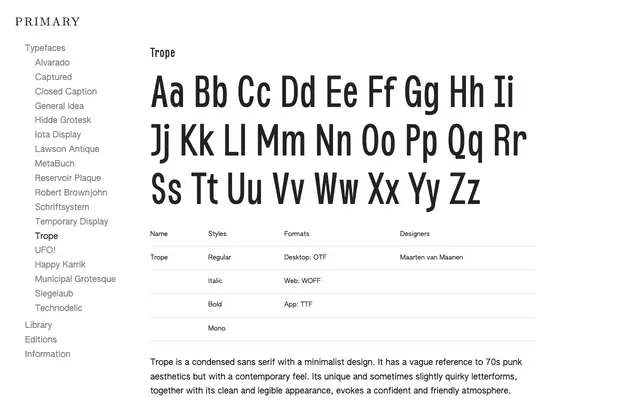
Trope
A condensed minimalist sans with a loose nod to 70s punk, designed by Maarten van Maanen with four styles including a monospaced variant.
Designed by Maarten van Maanen, Trope is a condensed sans serif with clean, legible forms and occasional quirks in the letterforms that keep it from feeling generic. The family spans Regular, Italic, Bold and a Mono cut, covering 244 glyphs with extended Latin characters, ligatures and lining figures. The desktop OTF is available free for self-initiated, non-profit and cultural projects, with paid licences for commercial use.
Described explicitly as a condensed sans serif with minimalist design and a loose reference to 70s punk aesthetics; its clean geometry and condensed proportions place it firmly in the sans-serif category with a condensed subcategory.